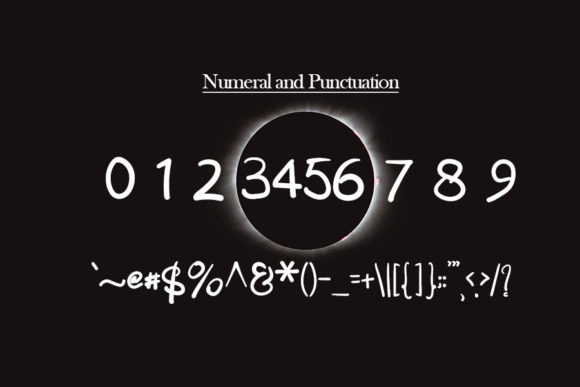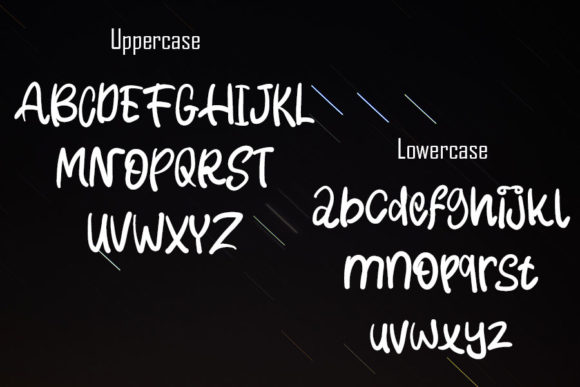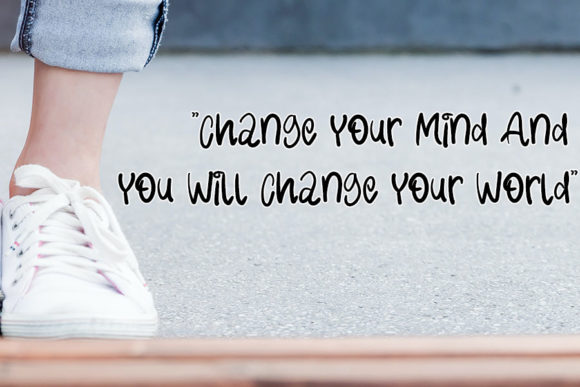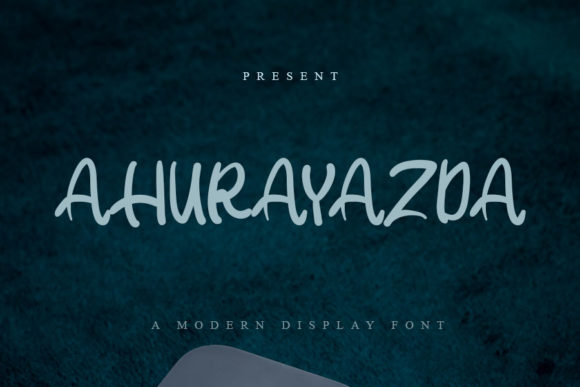
Introducing Ahurayazda Font: The Ultimate Handwritten Font for Modern Designs
Ahurayazda is an incredibly flexible and modern handwritten font that has taken the design world by storm. Whether you’re working on cartoon-related designs, children’s games, or any creation that requires a lovely touch, this font is an amazing choice. In this article, we’ll dive into the features, benefits, and uses of Ahurayazda Font, and explore why it’s a must-have for designers and crafters.
What is Ahurayazda Font?
Ahurayazda Font is a modern handwritten font designed to add a personal touch to your designs. Its unique and elegant style makes it perfect for a wide range of applications, from digital designs to print materials. The font is incredibly versatile, allowing you to use it for various projects, such as:
- Cartoon-related designs: Ahurayazda Font is ideal for creating fun and playful cartoon characters, logos, and titles.
- Children’s games: The font’s friendly and approachable style makes it perfect for kids’ games, puzzles, and educational materials.
- Branding and advertising: Ahurayazda Font can add a touch of personality to your brand’s identity, making it more relatable and engaging.
- Digital and print materials: Use the font for social media graphics, blog posts, flyers, brochures, and more.
Key Features of Ahurayazda Font
So, what makes Ahurayazda Font so special? Here are some of its key features:
- Flexibility: Ahurayazda Font is incredibly flexible, allowing you to use it for various projects and designs.
- Modern style: The font boasts a modern and elegant style that’s perfect for contemporary designs.
- Handwritten: Ahurayazda Font has a beautiful handwritten feel that adds a personal touch to your designs.
- Easy to read: The font is clear and easy to read, making it perfect for body text and headings.
Benefits of Using Ahurayazda Font
Using Ahurayazda Font can bring numerous benefits to your designs. Here are some of the advantages of using this amazing font:
- Unique designs: Ahurayazda Font allows you to create unique and eye-catching designs that stand out from the crowd.
- Time-saving: The font’s versatility and flexibility save you time and effort, as you can use it for multiple projects.
- Professional look: Ahurayazda Font gives your designs a professional and polished look, making them perfect for clients and personal projects.
| Font Name | Ahurayazda Font |
| Author | muhawk47 |
Ahurayazda Font is an incredible addition to any designer’s or crafter’s toolkit. Its flexibility, modern style, and handwritten feel make it perfect for a wide range of applications. Whether you’re working on cartoon-related designs, children’s games, or any creation that requires a lovely touch, Ahurayazda Font is an amazing choice. With its numerous benefits, ease of use, and affordability, Ahurayazda Font is a must-have for anyone looking to elevate their designs and add a personal touch.